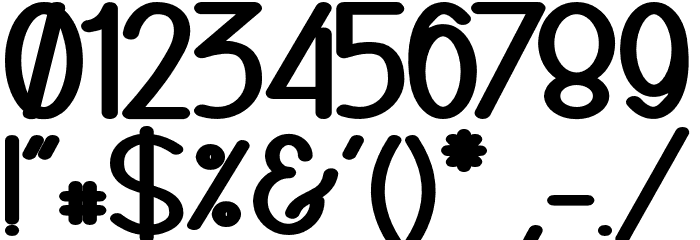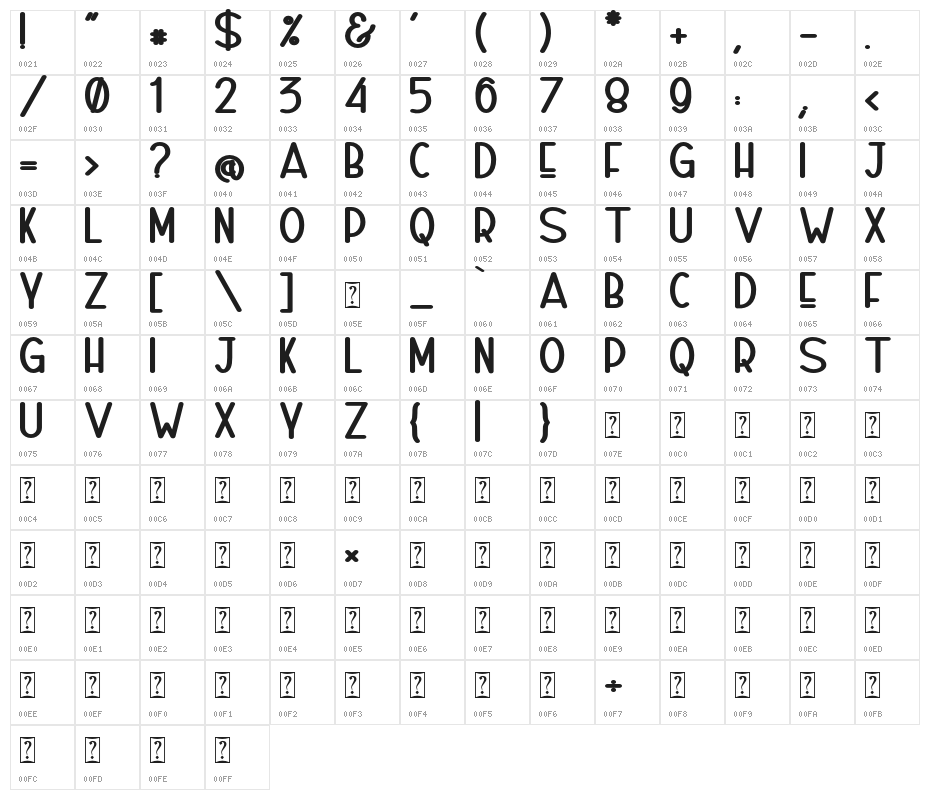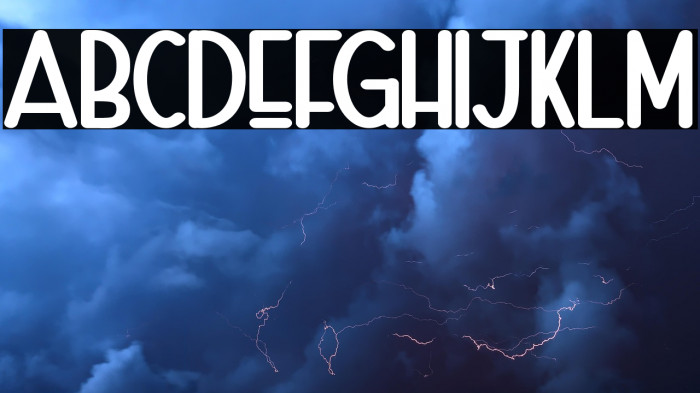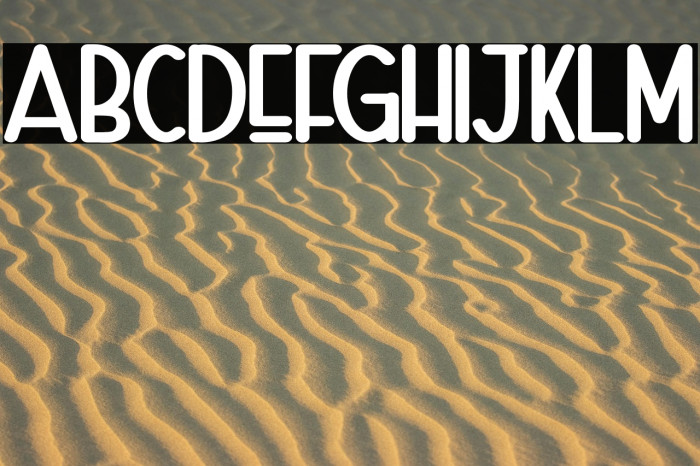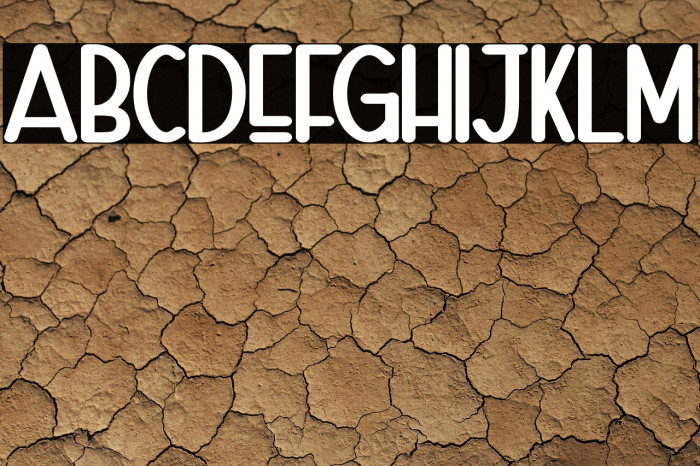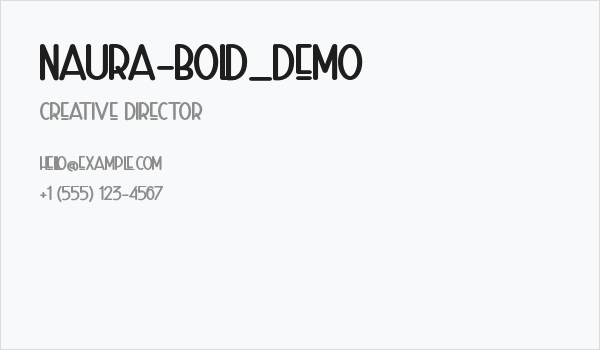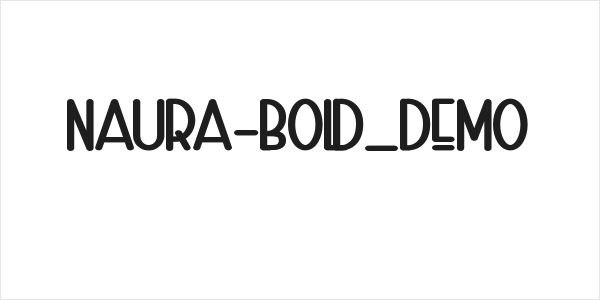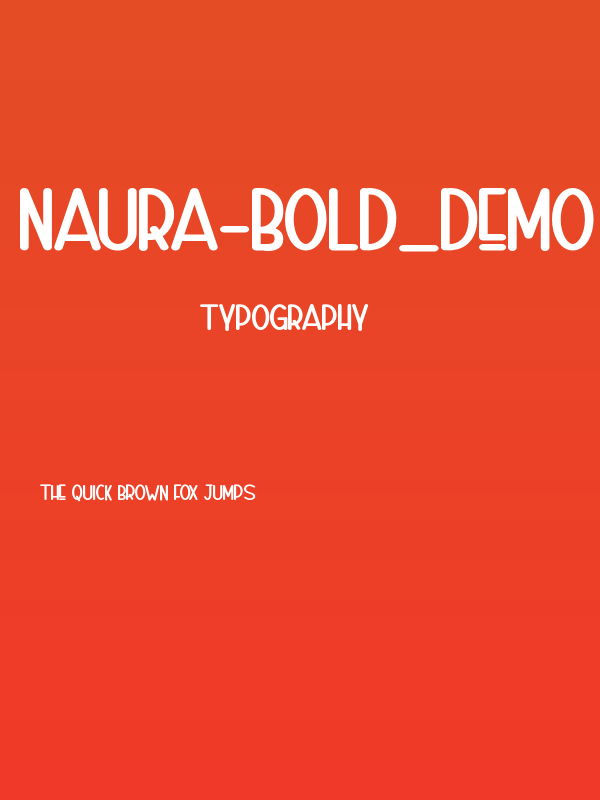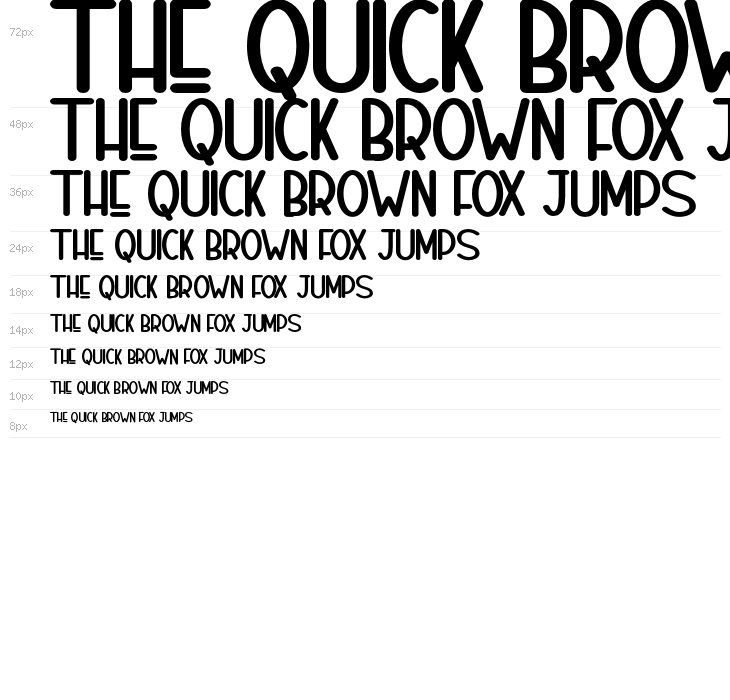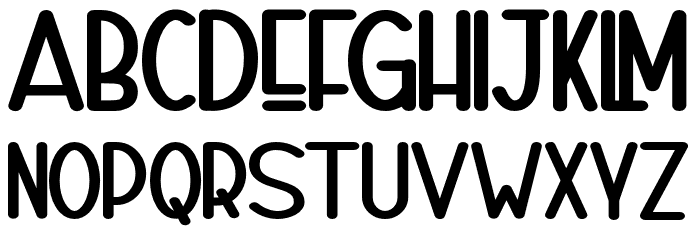
Naura-Bold_DEMO Font
Naura-Bold_DEMO Description
This font features a bold and playful design with rounded edges and a smooth, flowing style. The characters are evenly spaced, providing a clean and modern look. The uppercase and lowercase letters maintain a consistent height, creating a harmonious appearance. The numbers and special characters are designed to match the overall aesthetic, making it versatile for various uses. Its boldness and unique style make it stand out, while the rounded edges add a friendly and approachable feel.